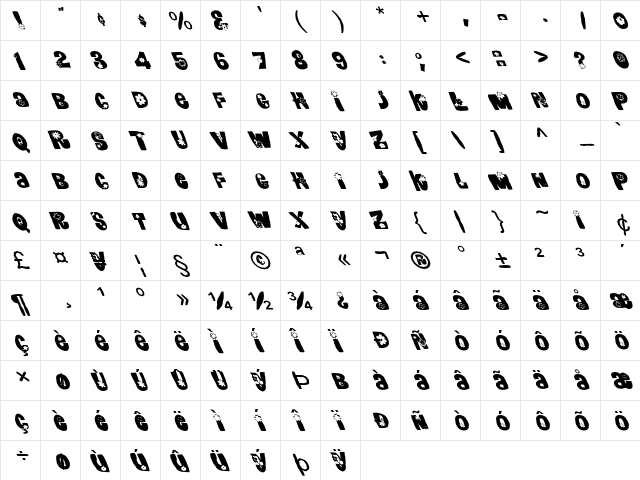
FZ UNIQUE 3 MANGLED LEFTY Normal Font Preview
FZ UNIQUE 3 MANGLED LEFTY Normal
Design Context for FZ UNIQUE 3 MANGLED LEFTY Typeface
FZ UNIQUE 3 MANGLED LEFTY is a composed and adaptable typeface that performs quietly and consistently across a wide range of design contexts.